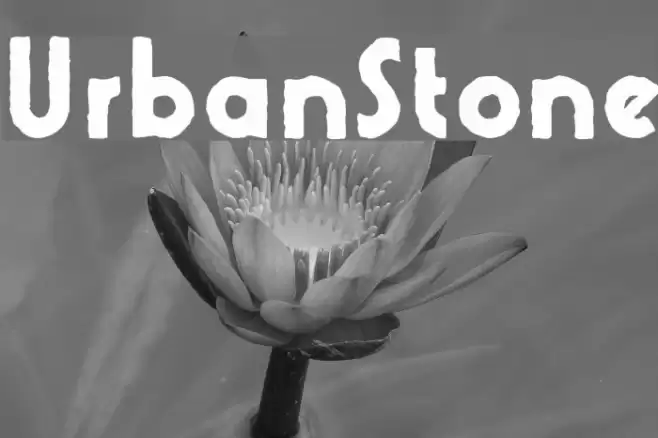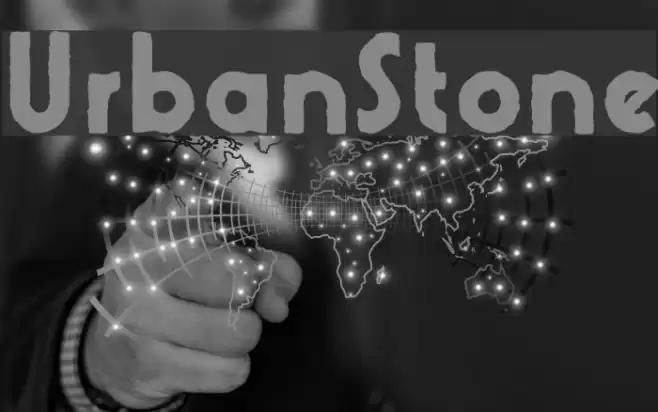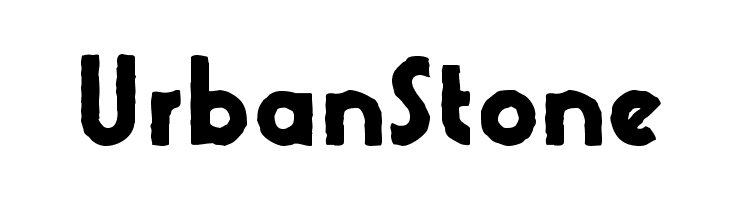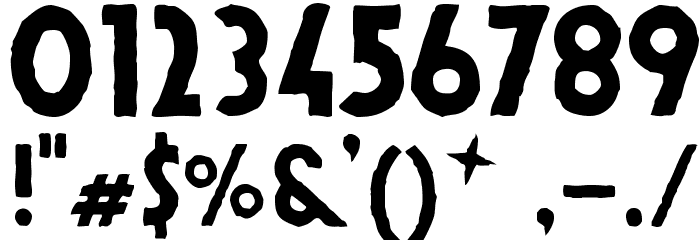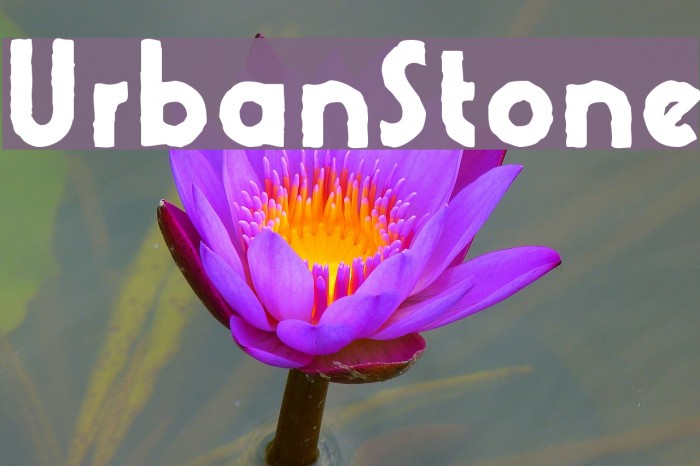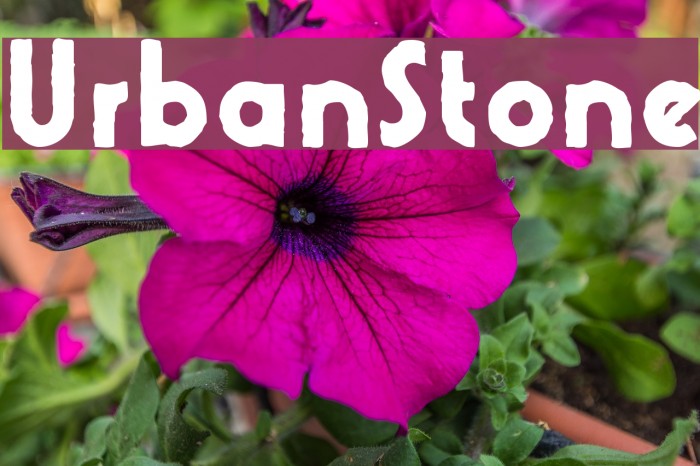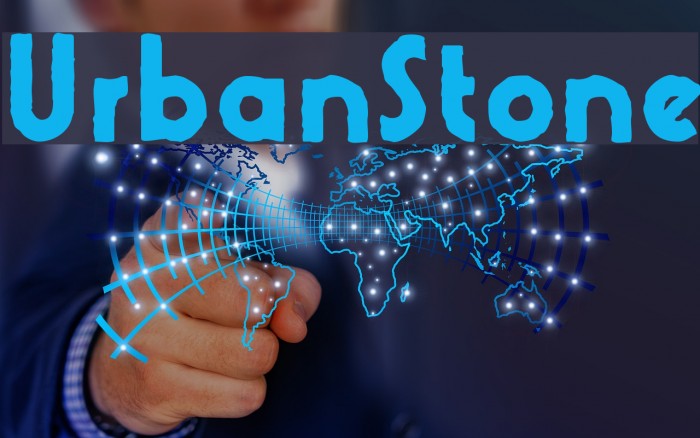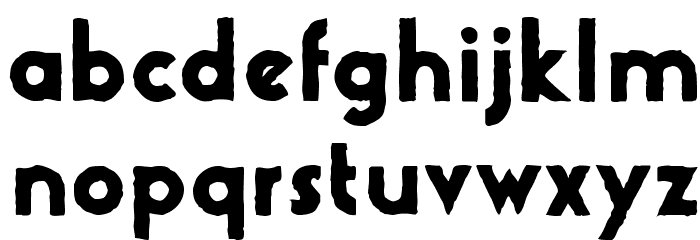
UrbanStone Font
UrbanStone Description
This font features a bold and rugged design, with a hand-crafted appearance that gives it a unique and organic feel. The characters are slightly irregular, adding to its charm and making it stand out in any design. The uppercase letters are strong and assertive, while the lowercase letters maintain a consistent style that complements the overall look. The numbers and special characters are designed with the same attention to detail, ensuring a cohesive appearance across all text. This font is perfect for projects that require a touch of personality and creativity.
A bold, hand-crafted font with a rugged and organic feel from Uncategorized fonts.
- Proposed Projects: Ideal for branding, posters, album covers, and any creative projects that require a distinctive and artistic touch.